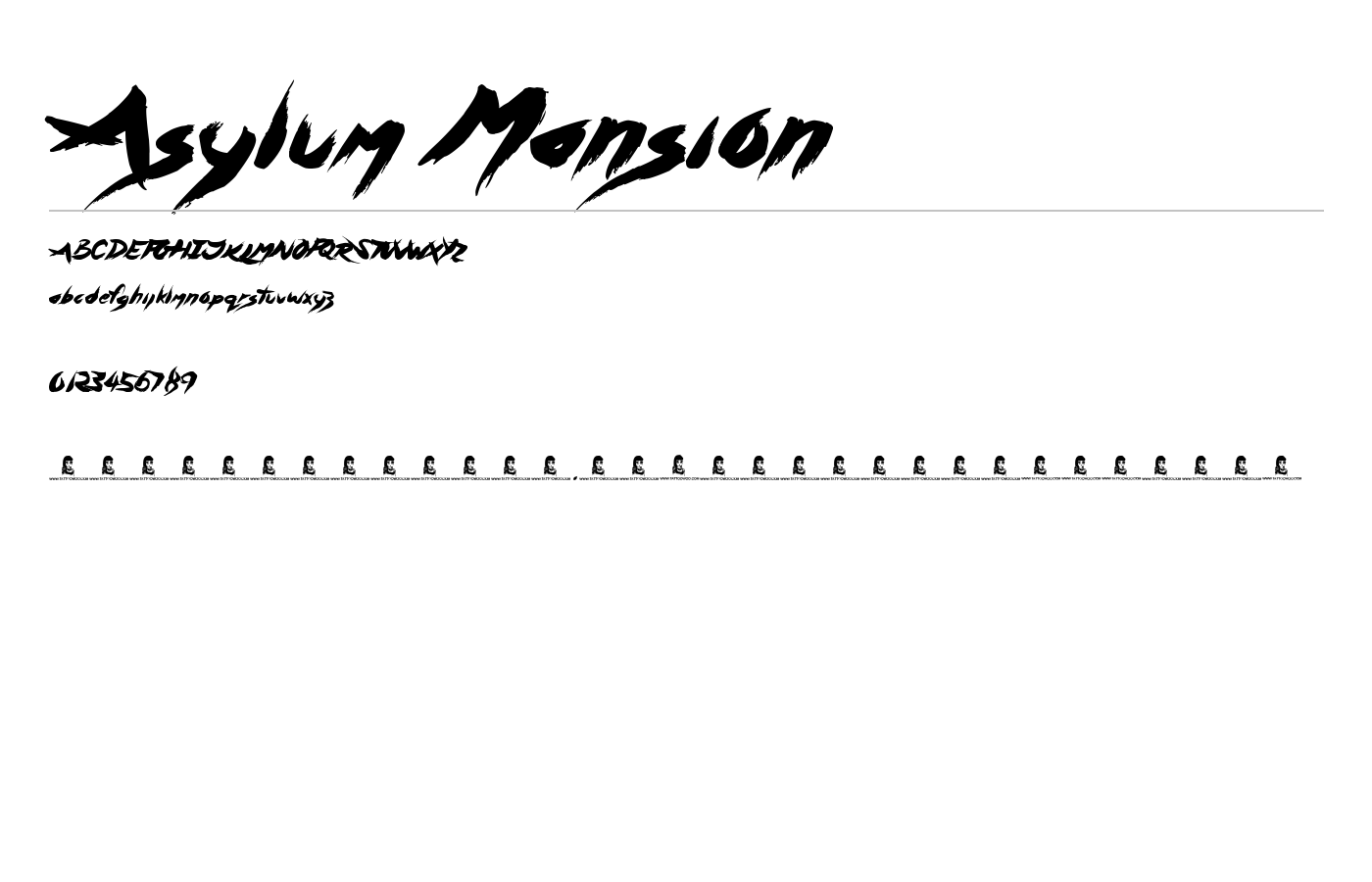
Asylum Mansion is a bold, brush-style script font characterized by sharp, jagged strokes that give it an intense, edgy feel. Its high contrast and irregular, hand-painted look make it perfect for horror-themed designs, edgy branding, or any project seeking a dramatic and expressive touch. This font works best in headlines, logos, or posters where its unique personality can stand out and evoke a sense of chaos or mystery.
Asylum Mansion Font
About Asylum Mansion Font
| Font family | Asylum Mansion Font |
| Designer | Jonathan S. Harris |